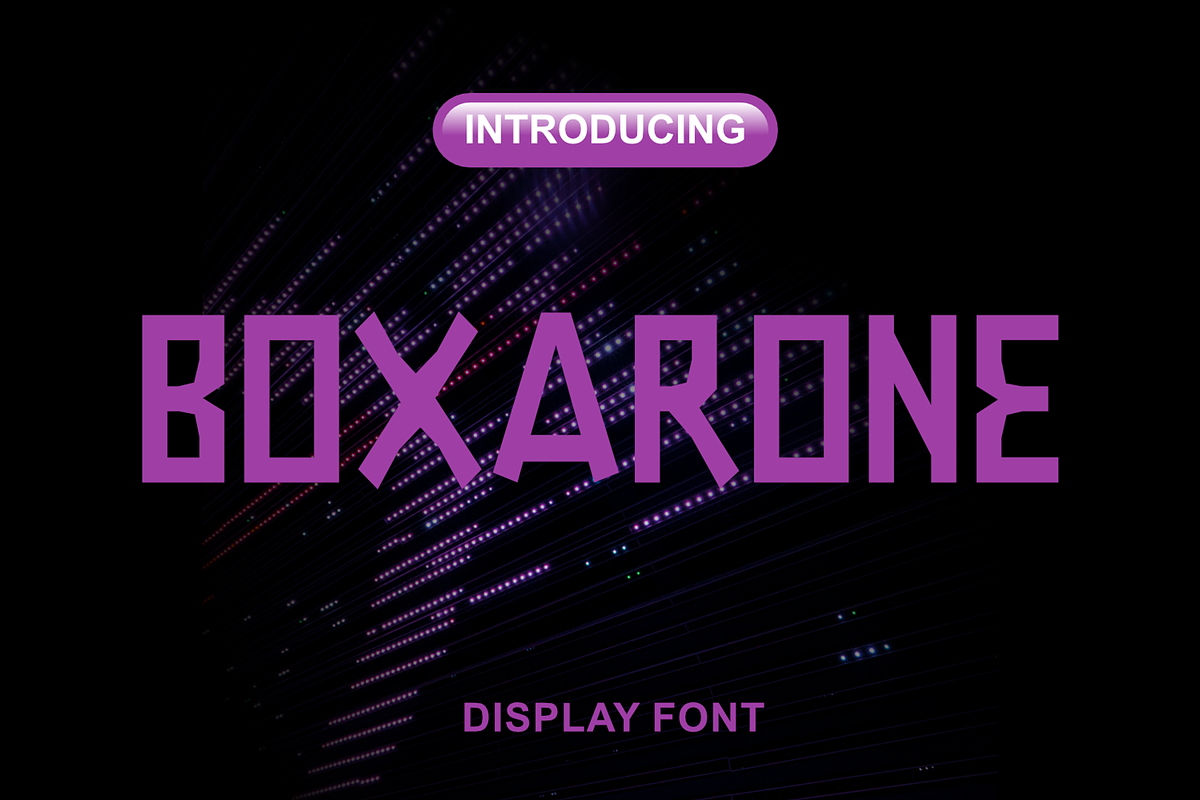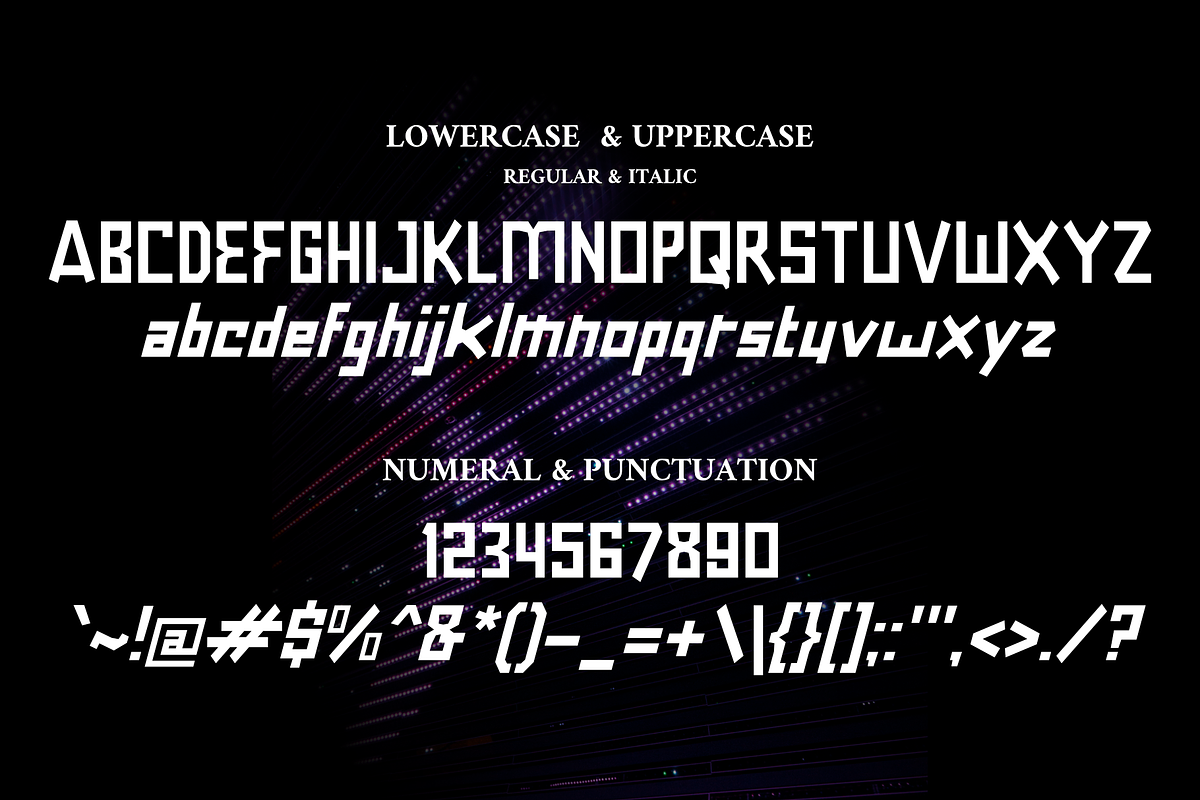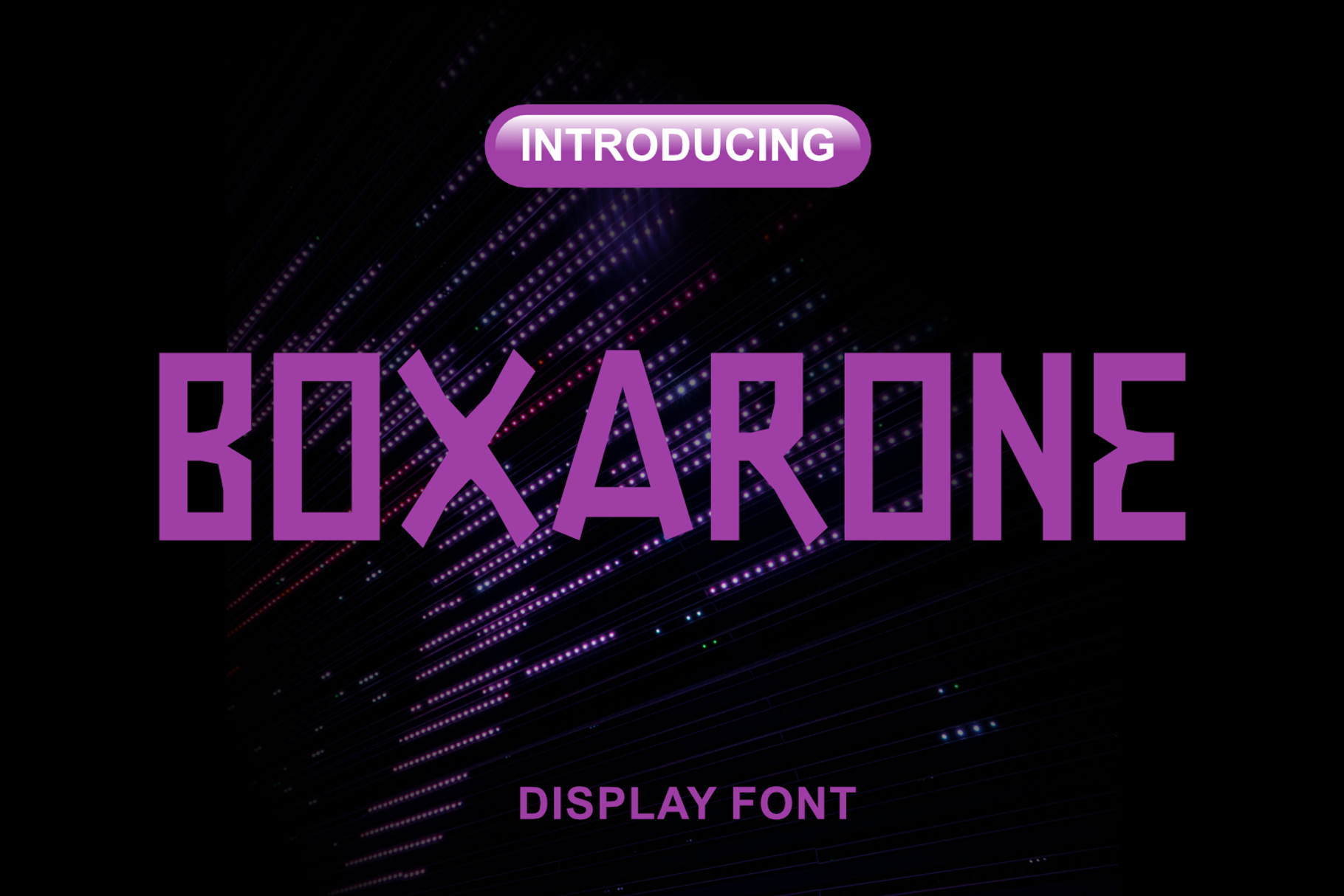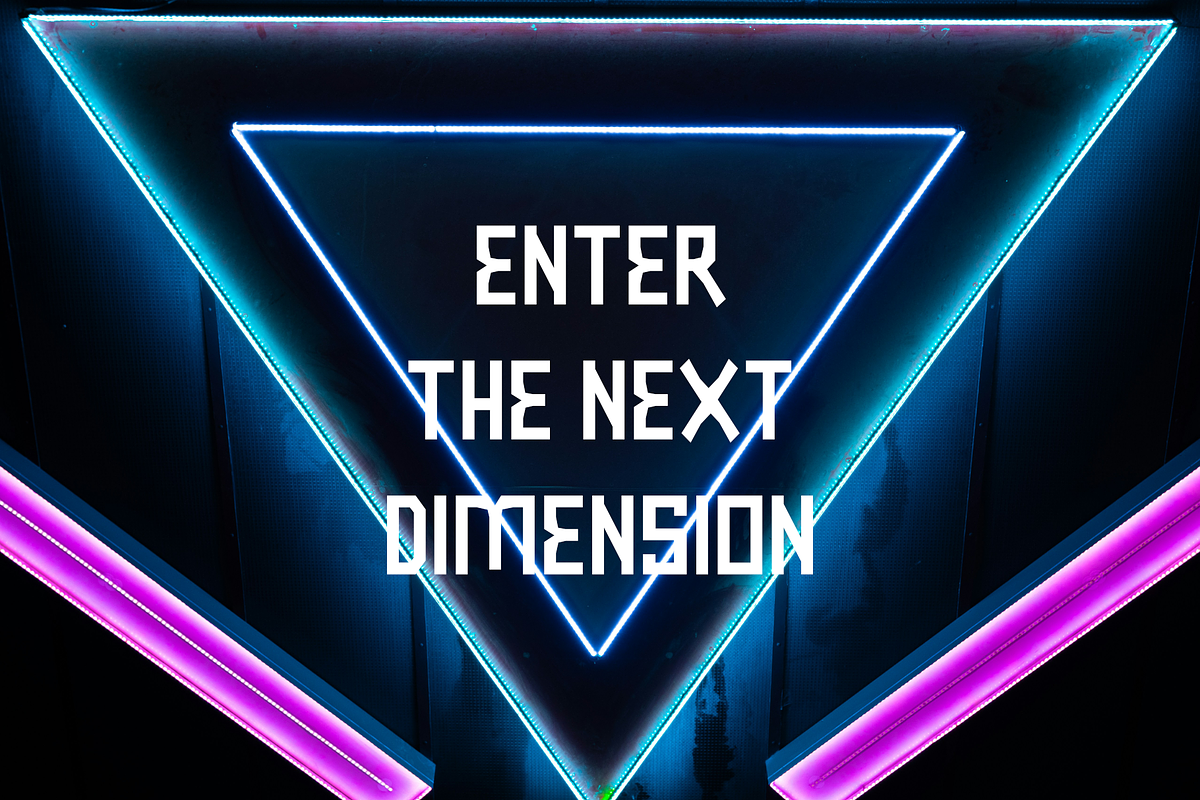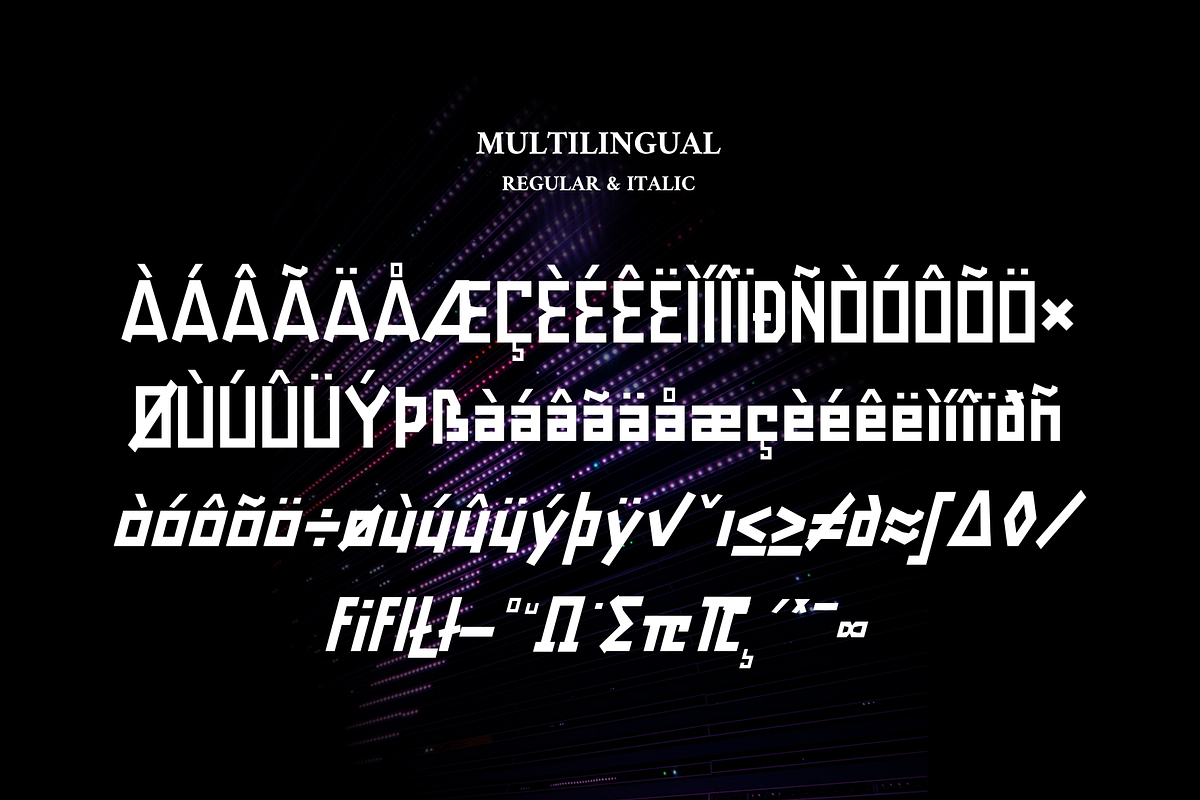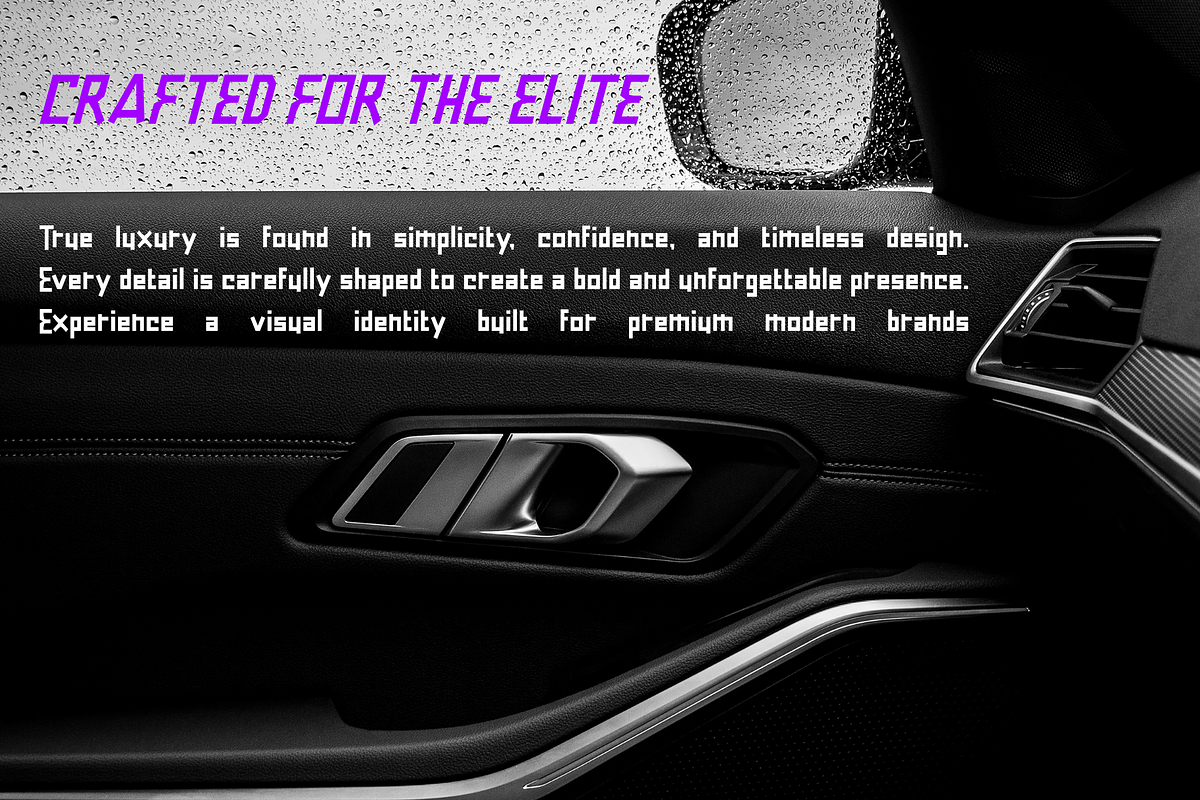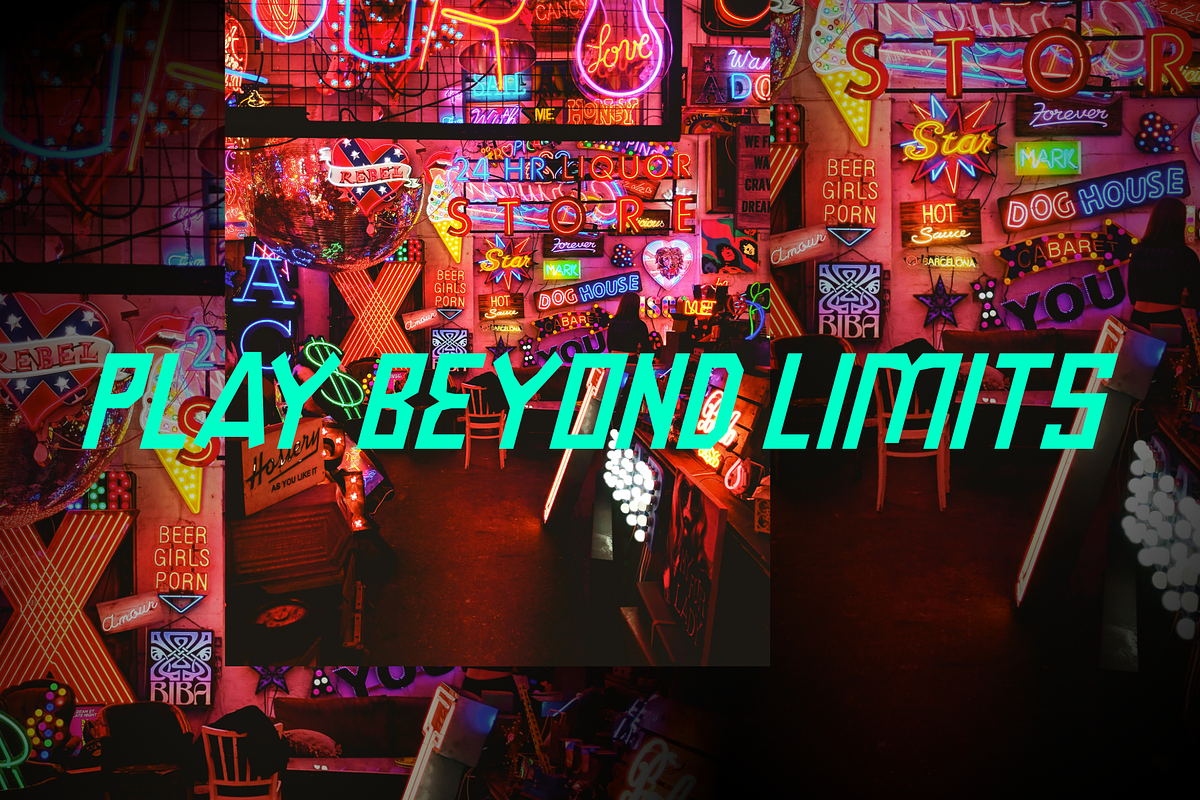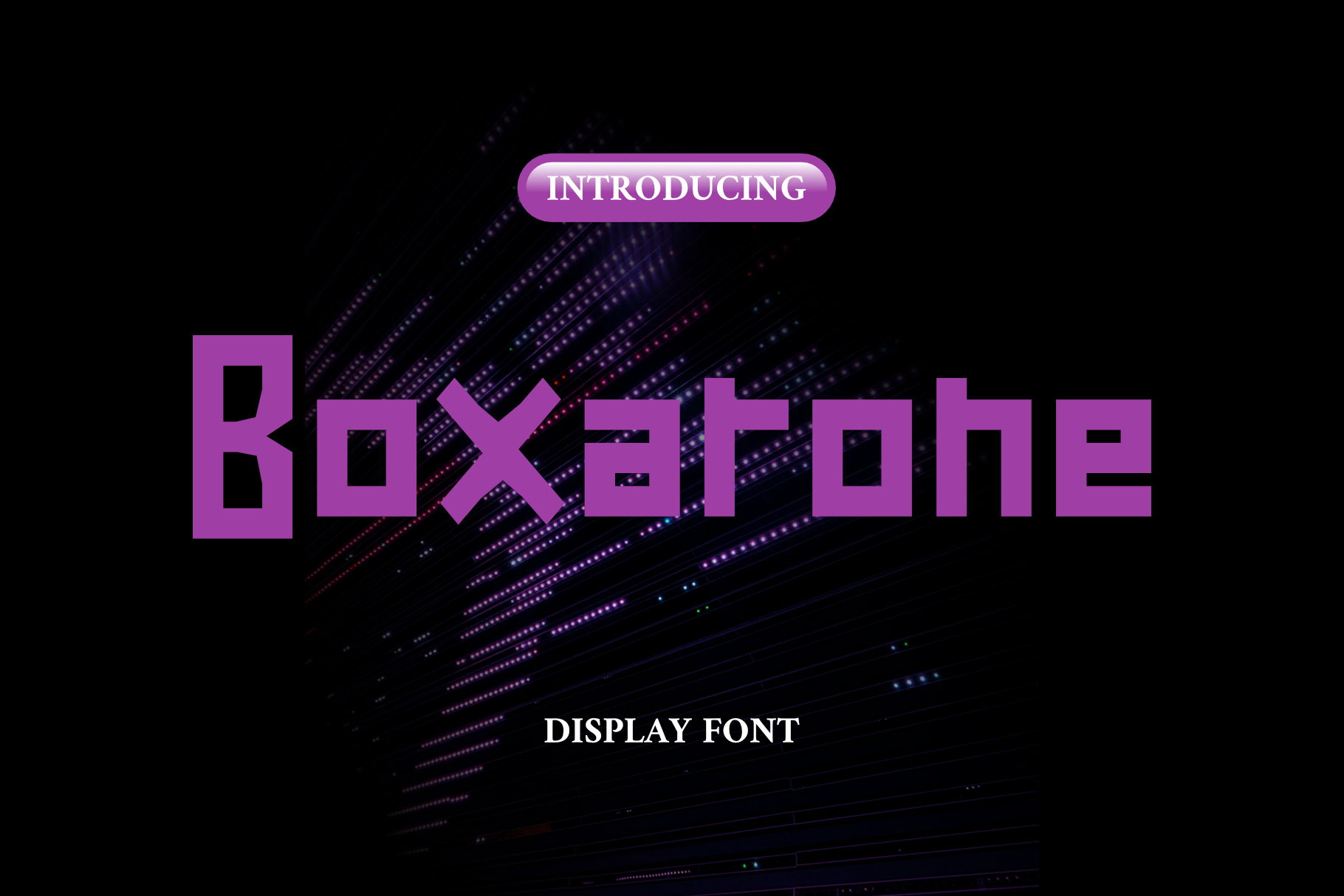
Boxarone Cyberpunk Display Font
BOXARONE is a bold futuristic display font crafted with strong geometric shapes and a modern techno aesthetic. Designed to create a powerful visual impact, this typeface blends cyberpunk energy, gaming culture, and sci-fi inspiration into a clean and distinctive style.